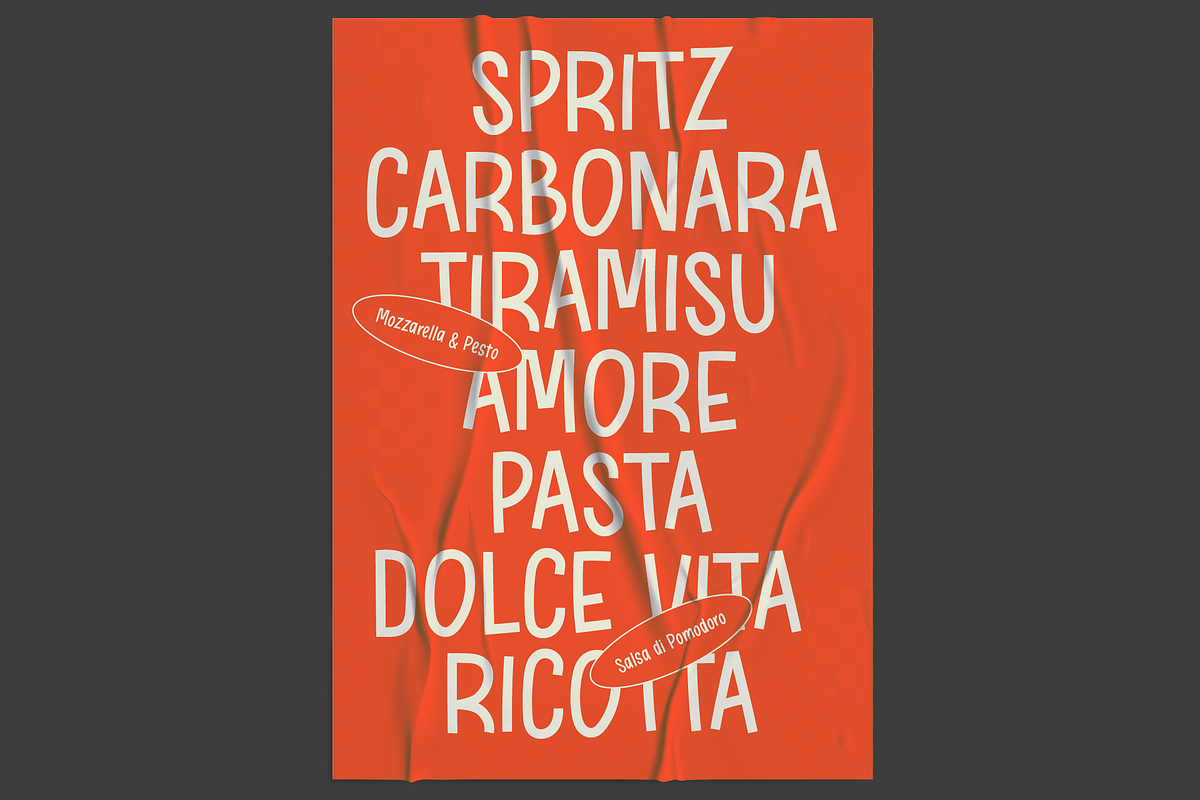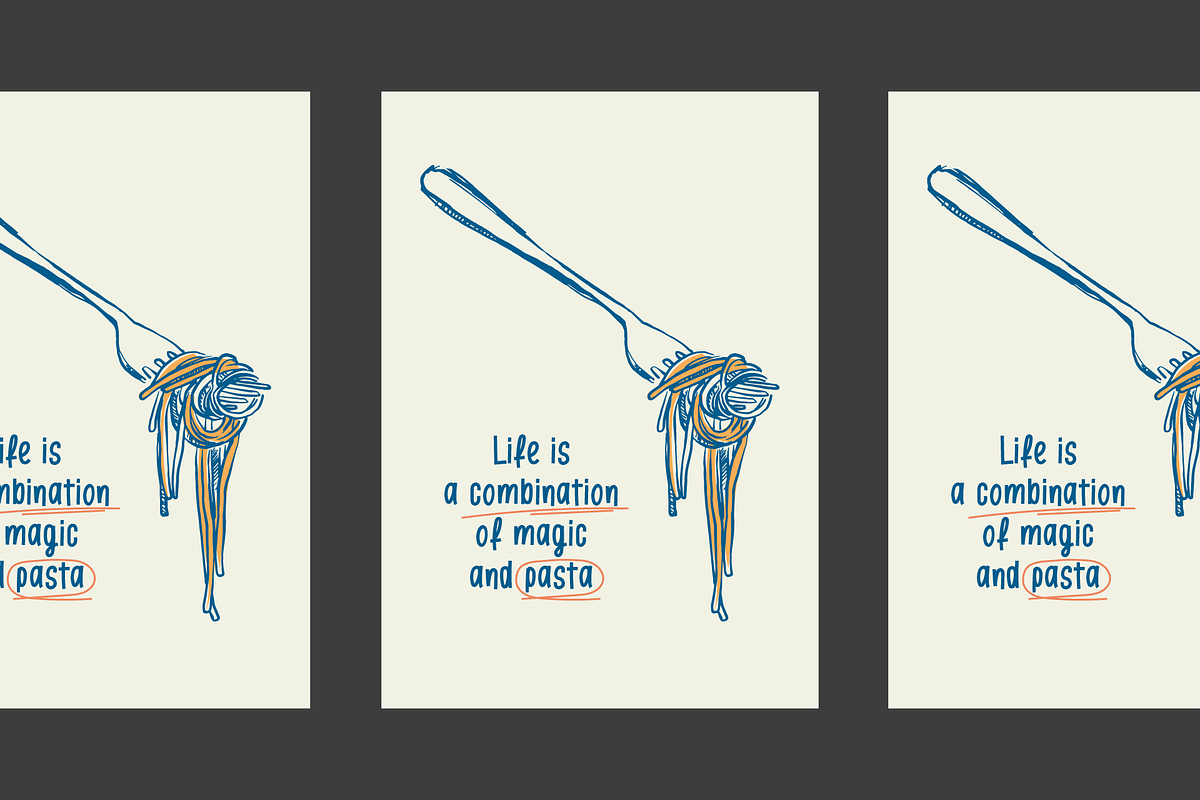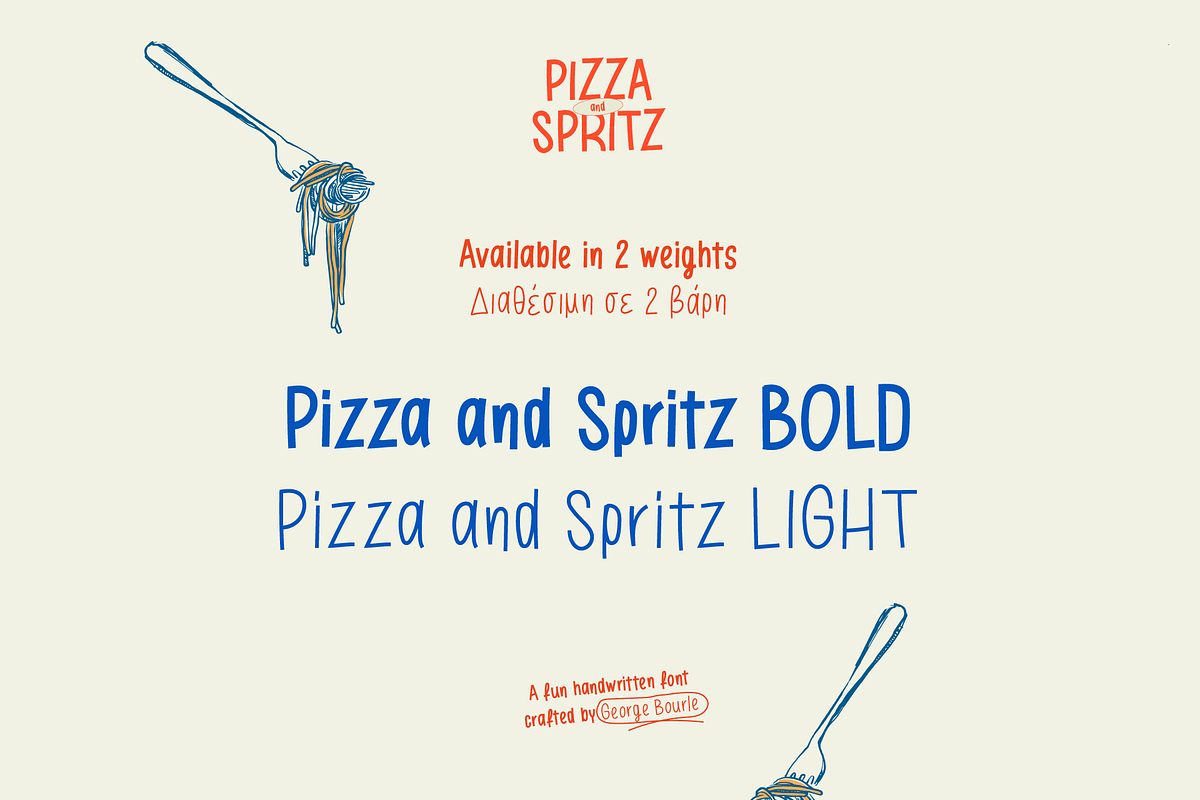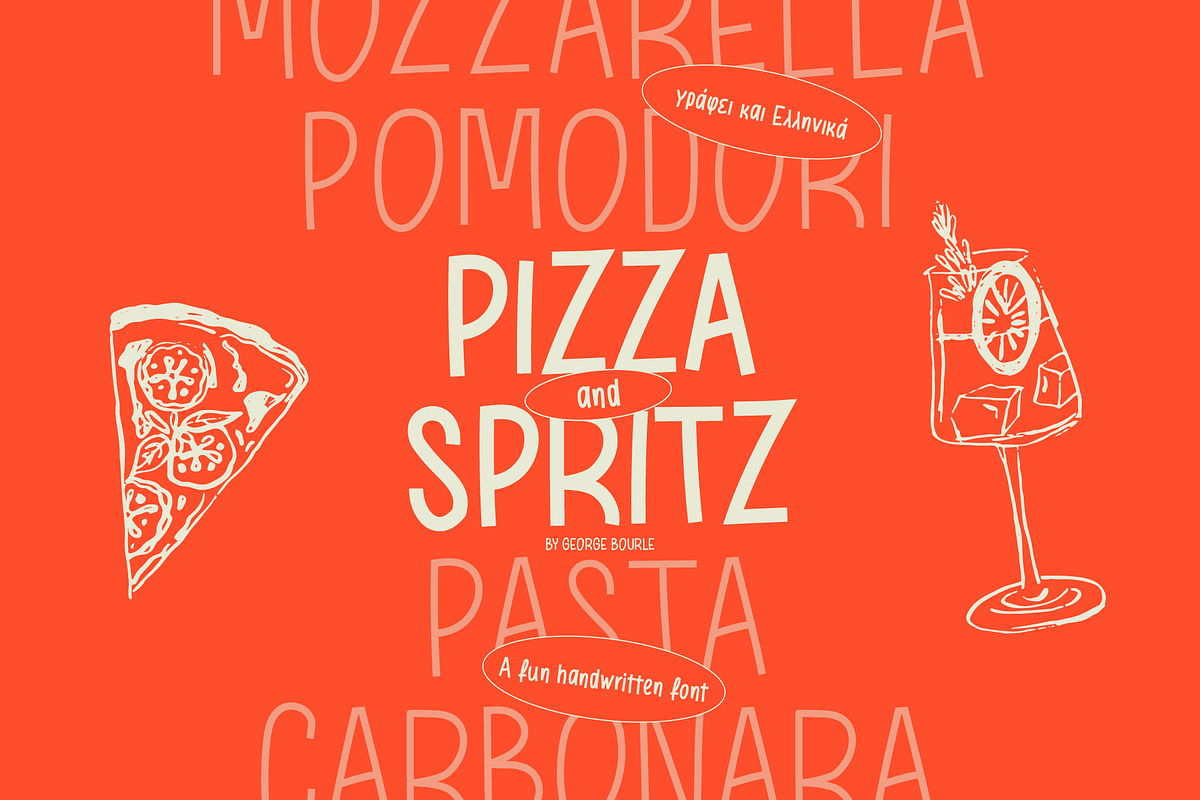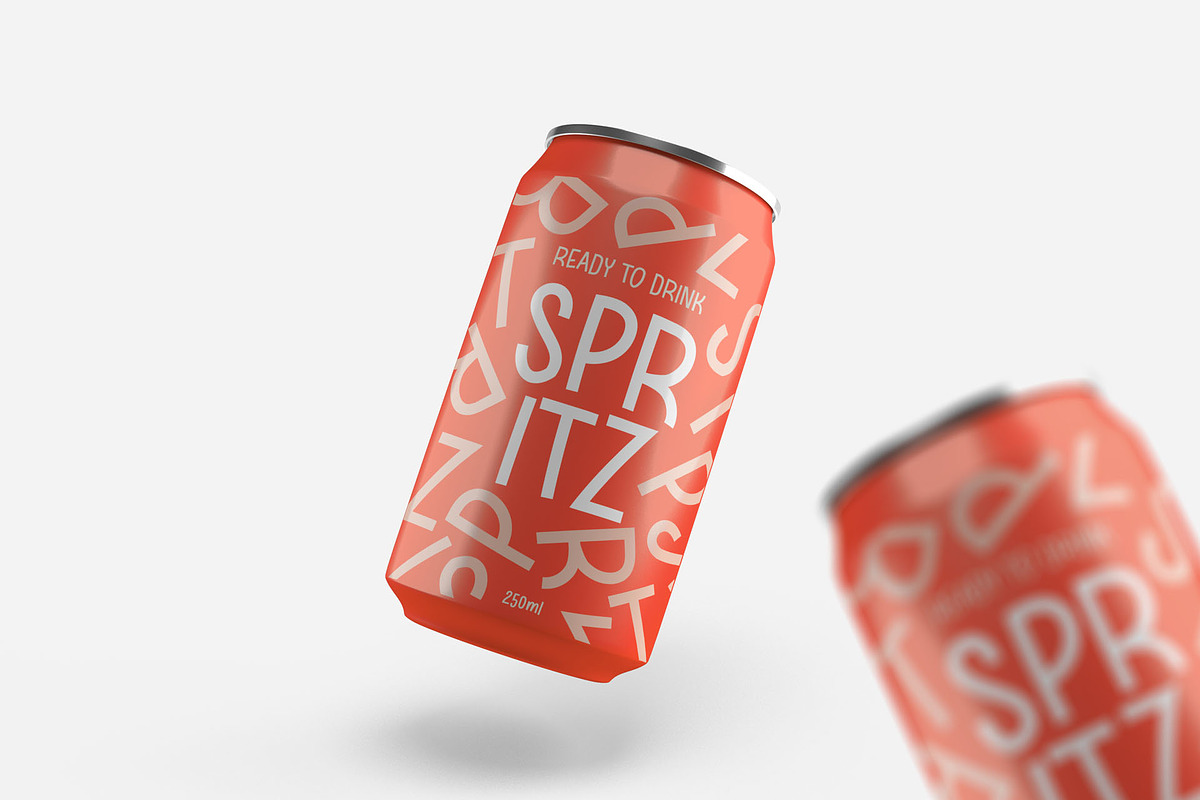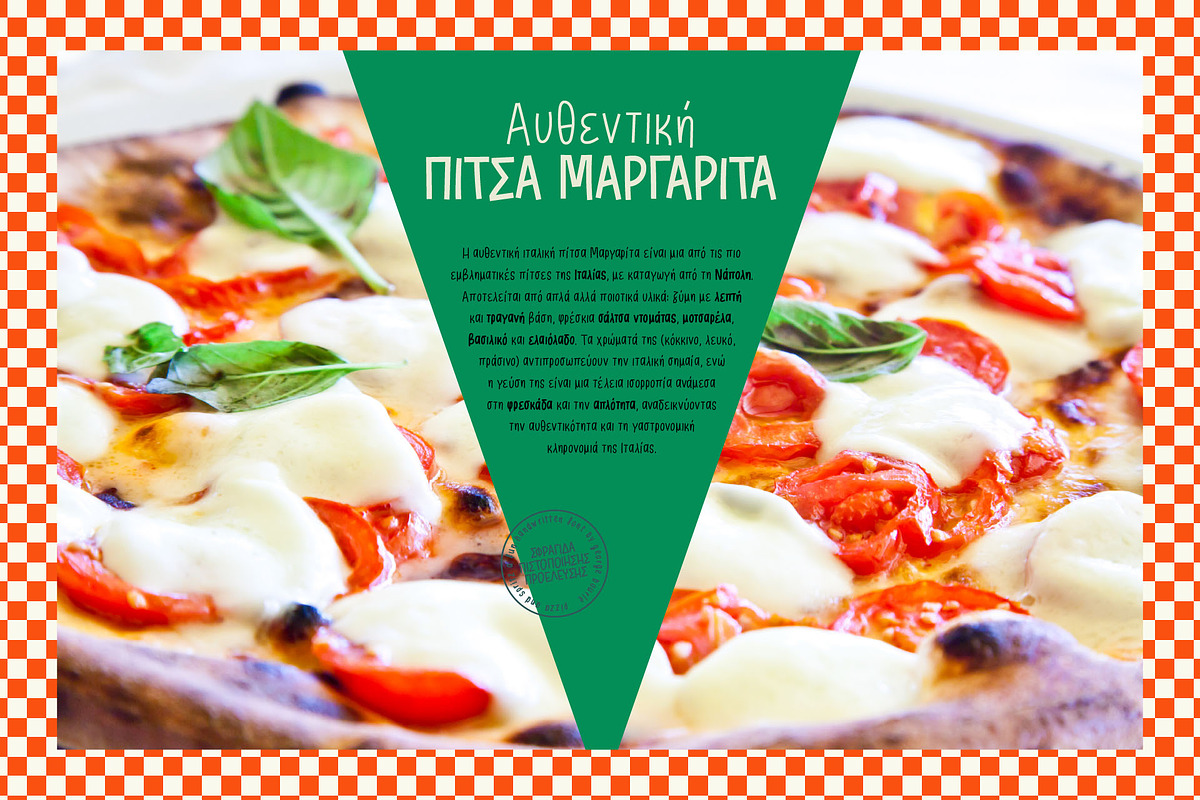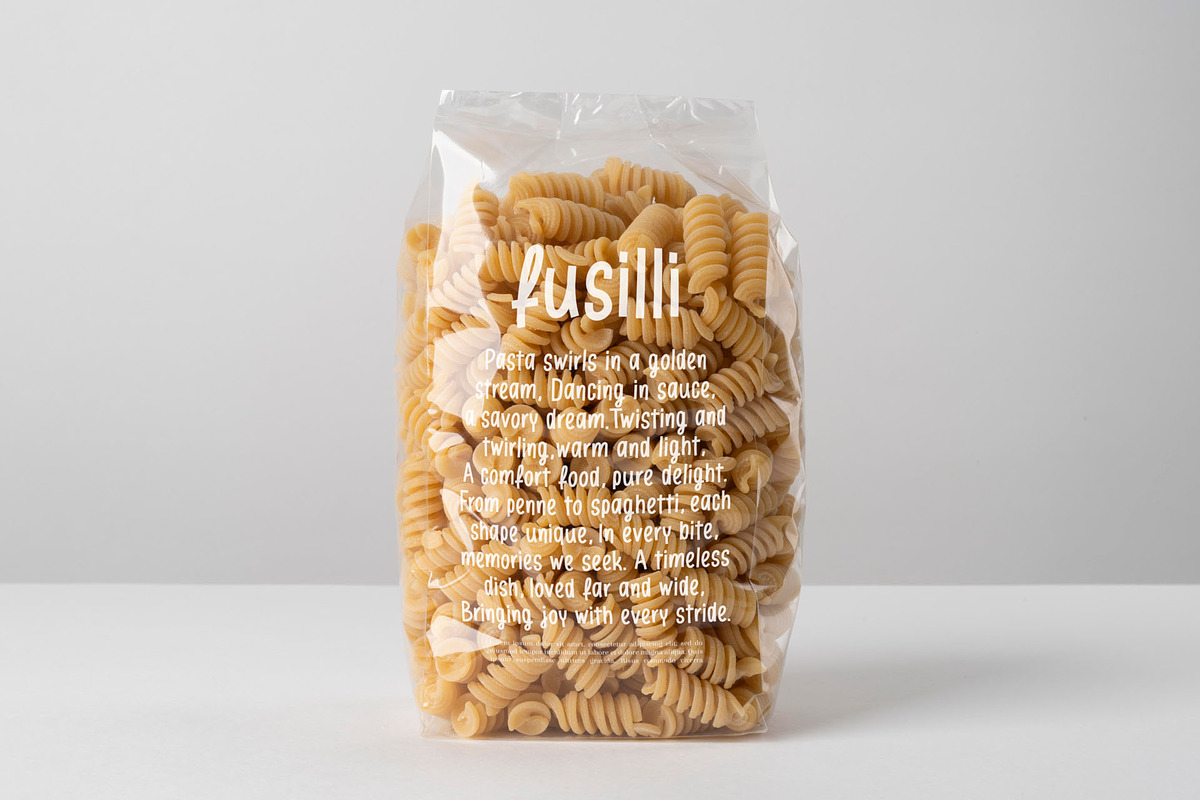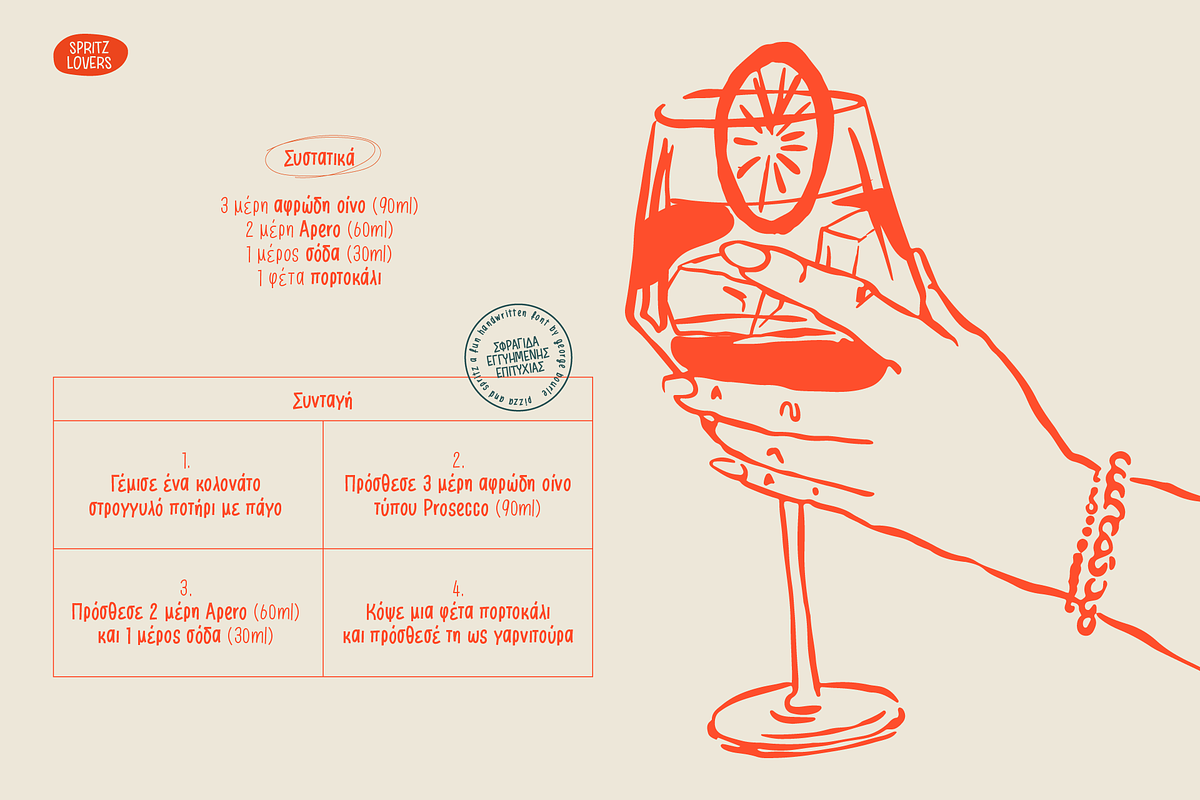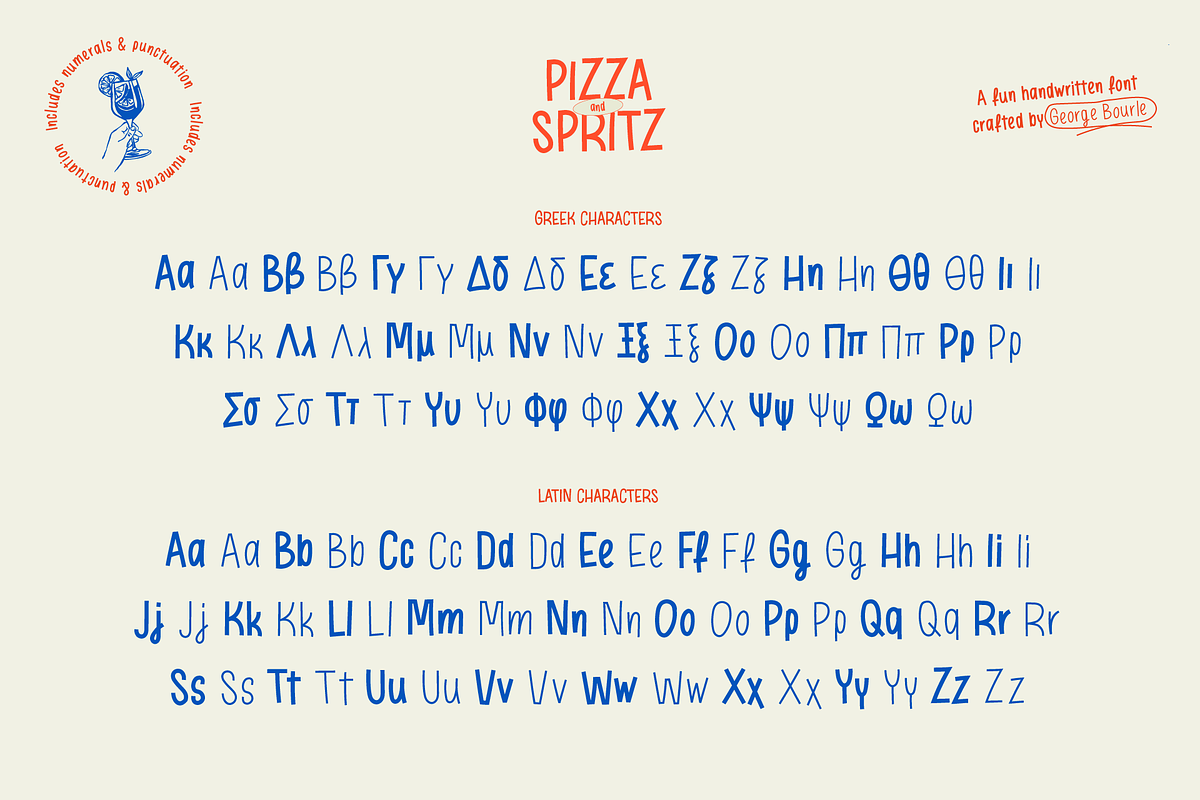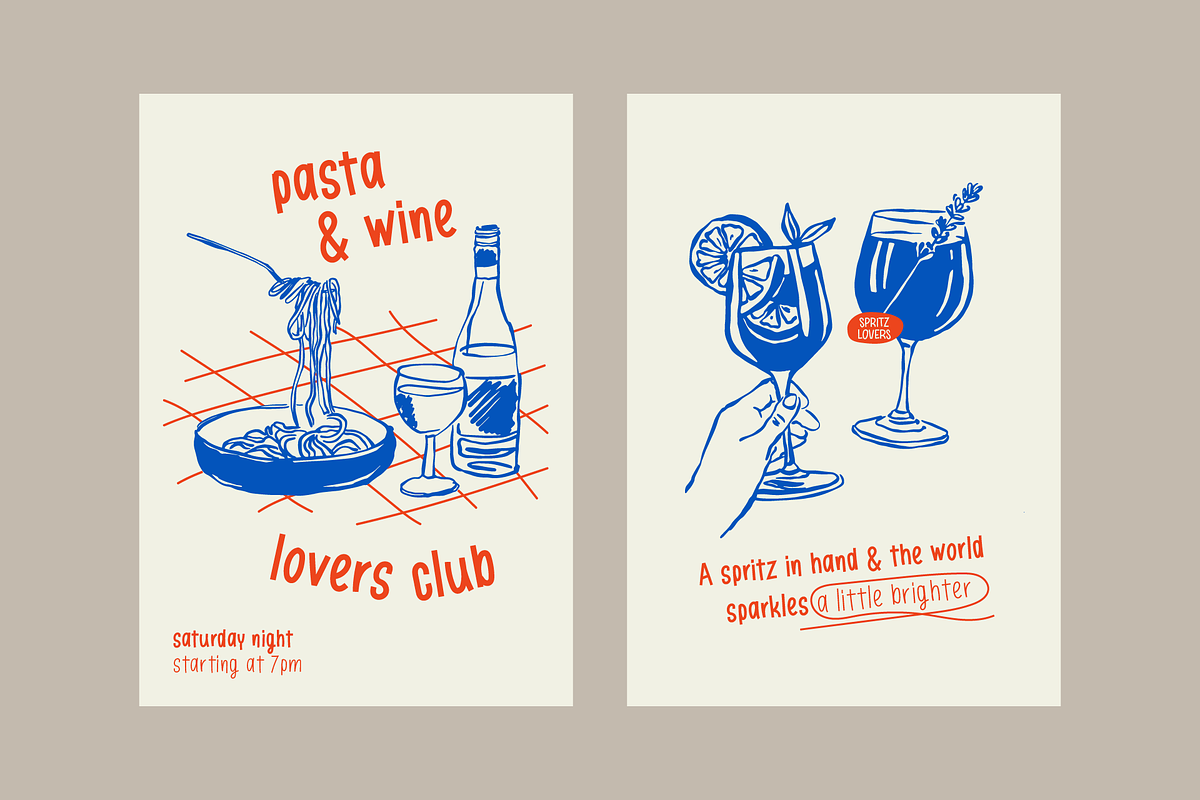
Pizza & Spritz
Pizza & Spritz is a fun, handwritten font with Greek characters and it’s available in two lively styles, inspired by my latest trip to Italy.
It captures all the “allegro” spirit of Italian days filled with delicious pizza and refreshing spritz!
This versatile font is perfect for your next project and it works like magic in both display titles and body texts.
Let the fun begin!